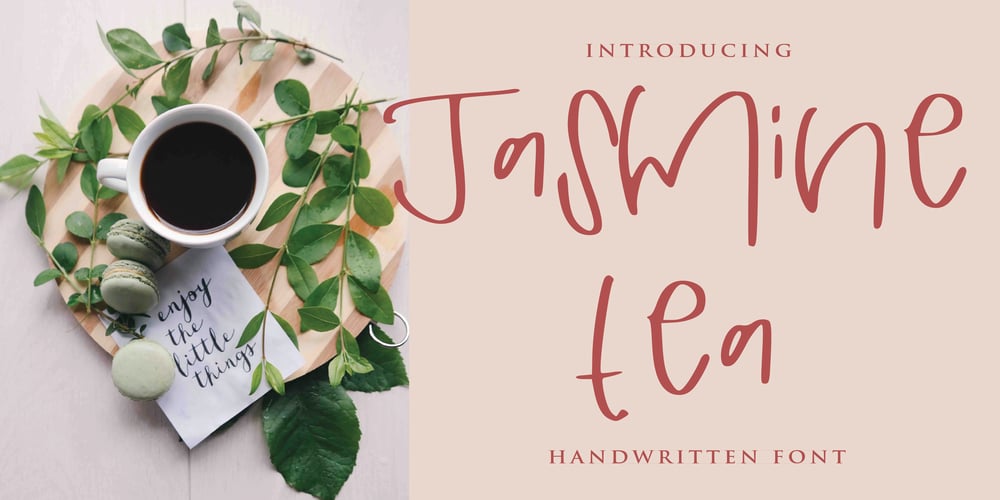
Jasmine Tea
Jasmine Tea font
Jasmine Tea Font Family was designed by Mariyana and published by Goodigital13. Jasmine Tea contains 1 styles and family package options. Characters So beautiful on invitation like greeting cards, branding materials, business cards, quotes, posters, and more!!